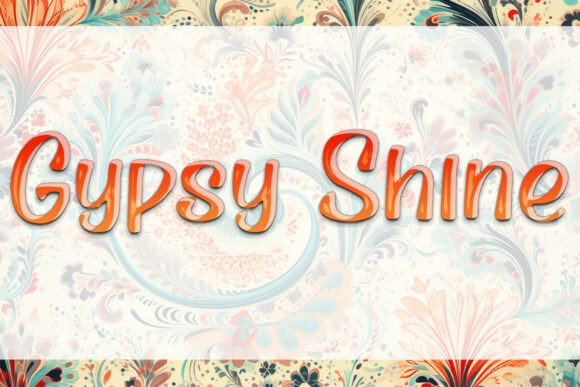
Unleash Your Creativity with Gypsy Shine Font
Welcome to the vibrant world of Gypsy Shine Font, where creativity knows no bounds! This stunning font is designed to add a touch of elegance and whimsy to your design projects, making it perfect for a wide range of applications. From T-shirts and stickers to branding, fashion magazines, and SVG files, Gypsy Shine Font is the ultimate choice for designers and crafters looking to make a statement.
Gypsy Shine Font is a versatile and creative font that can be used in various design projects, including:
- T-shirts and Apparel: Add a touch of personality to your T-shirts, hoodies, and other apparel with Gypsy Shine Font. Its unique style and flair make it perfect for creating eye-catching designs that stand out.
- Stickers and Decals: Create stunning stickers and decals with Gypsy Shine Font that can be used on laptops, water bottles, and other items. Its bold and colorful style is sure to grab attention.
- Branding and Packaging: Give your brand a distinctive edge with Gypsy Shine Font. Use it on packaging, labels, and business cards to create a lasting impression.
- Fashion Magazines and Editorial Design: Add a touch of glamour to your fashion magazines and editorial designs with Gypsy Shine Font. Its elegant and sophisticated style makes it perfect for high-end fashion brands.
- SVG Files and Cutting Machines: Gypsy Shine Font is compatible with SVG files, making it perfect for use with cutting machines like Cricut. Create stunning designs and crafts with ease.
- Greeting Cards and Stationery: Add a touch of whimsy to your greeting cards and stationery with Gypsy Shine Font. Its playful and colorful style makes it perfect for special occasions.
- Social Media and Posters: Make your social media posts and posters stand out with Gypsy Shine Font. Its bold and eye-catching style is sure to grab attention and drive engagement.
Why Choose Gypsy Shine Font?
Gypsy Shine Font offers a range of benefits that make it the ultimate choice for designers and crafters. Here are just a few reasons why:
- Unique and Creative Style: Gypsy Shine Font has a unique and creative style that sets it apart from other fonts. Its bold and colorful design makes it perfect for creating eye-catching designs.
Tips and Tricks for Using Gypsy Shine Font
Here are some tips and tricks for getting the most out of Gypsy Shine Font:
- Experiment with Colors and Effects: Gypsy Shine Font looks amazing with a range of colors and effects. Experiment with different colors and effects to create unique and eye-catching designs.
- Pair with Other Fonts: Gypsy Shine Font pairs well with other fonts, including script fonts and sans-serif fonts. Experiment with different font combinations to create stunning designs.
- Use on Different Materials: Gypsy Shine Font looks amazing on different materials, including paper, fabric, and metal. Experiment with different materials to create unique and eye-catching designs.
Immerse yourself in the creatively versatile world of Gypsy Shine Font and discover a world of endless design possibilities. Perfectly suited for an array of design projects – be it adorning T-shirts, enlivening stickers, leaving a mark with unique branding, embellishing fashion magazines or adding a touch of elegance to SVG files. It even sparks joy on greeting cards and gives a distinctive edge to Cricut projects. Amplify your posters with the striking depth of Gypsy Shine and let your social media posts stand out with its captivating style. Explore and more with the Gypsy Shine Font!